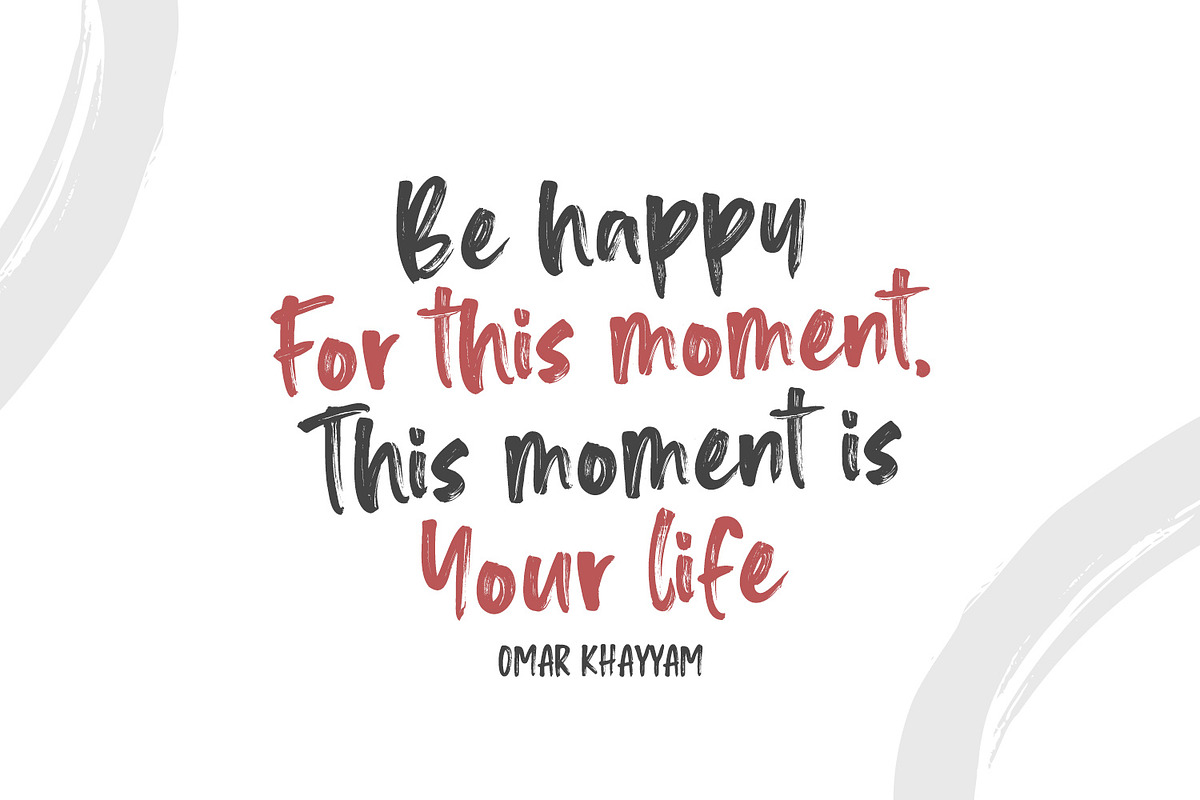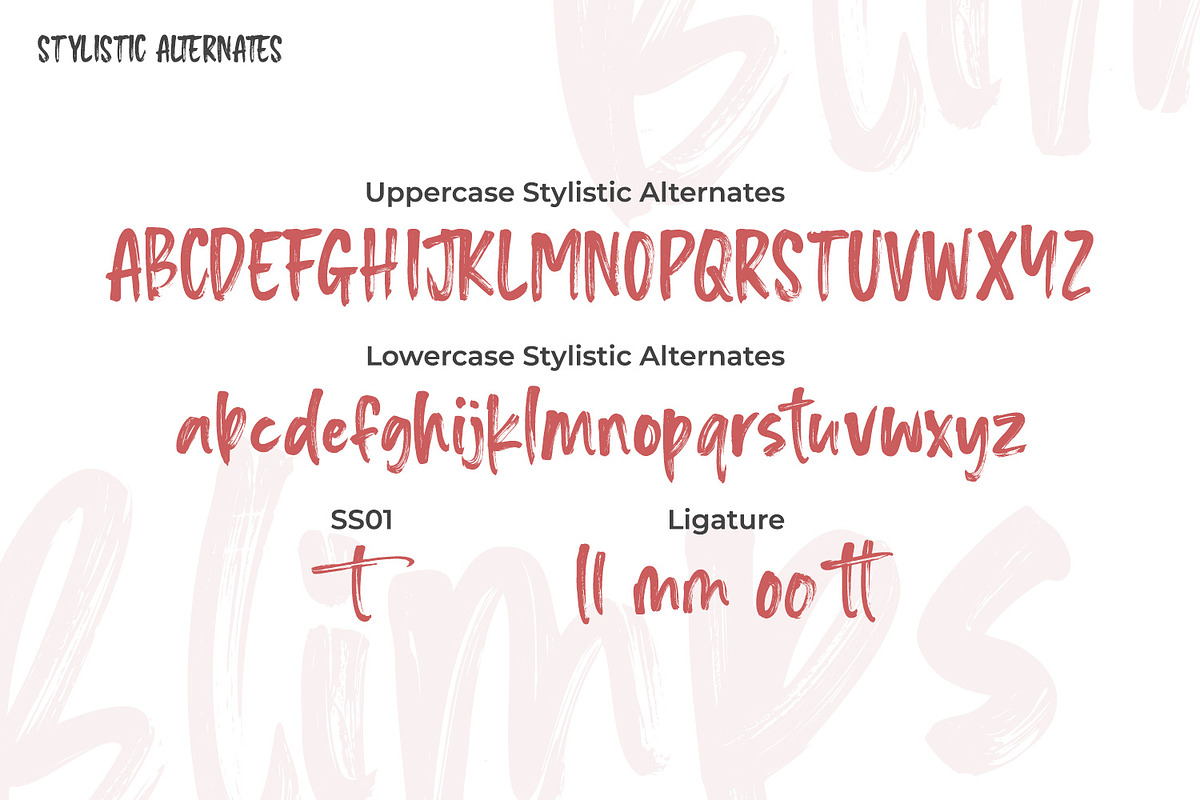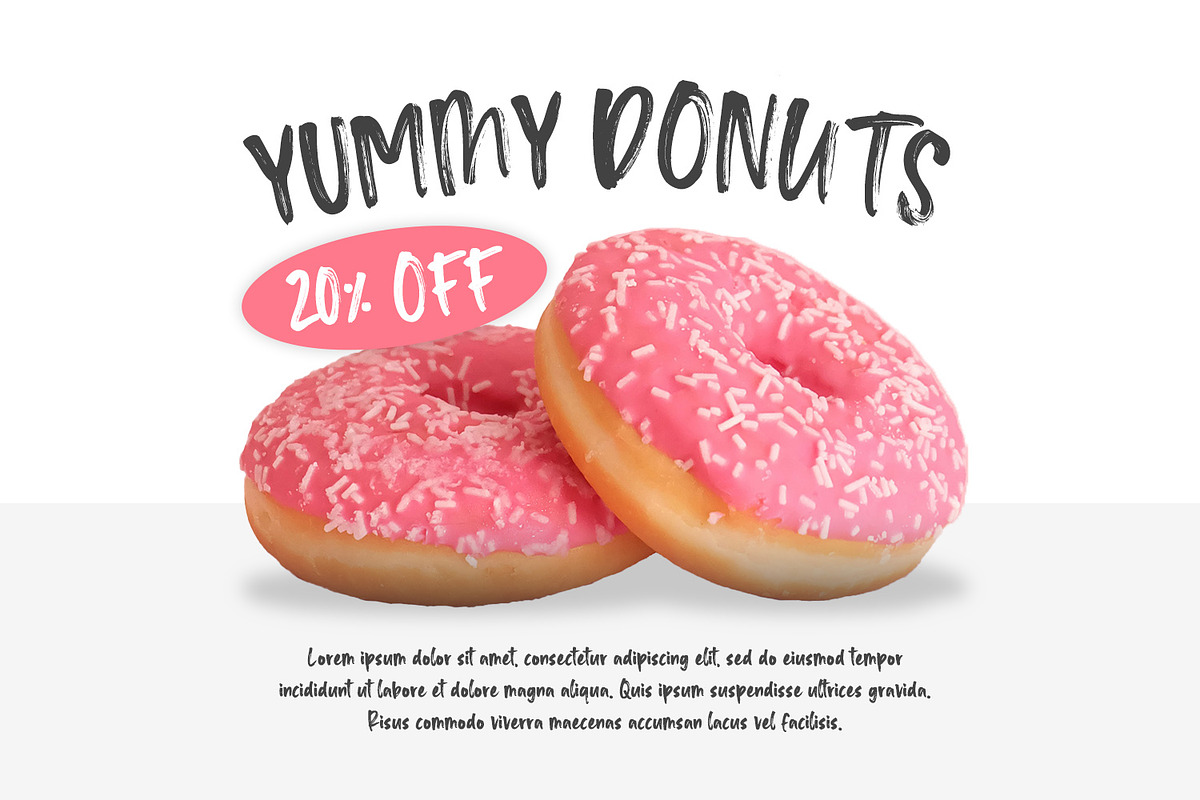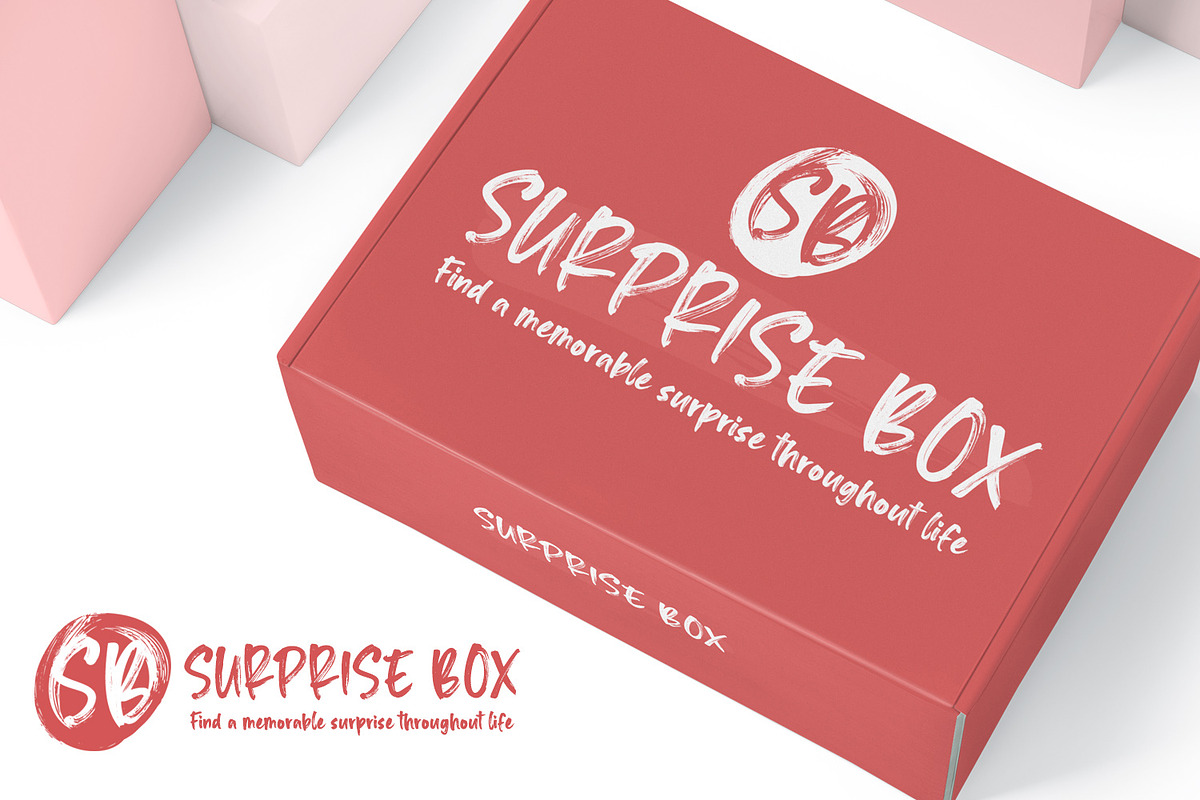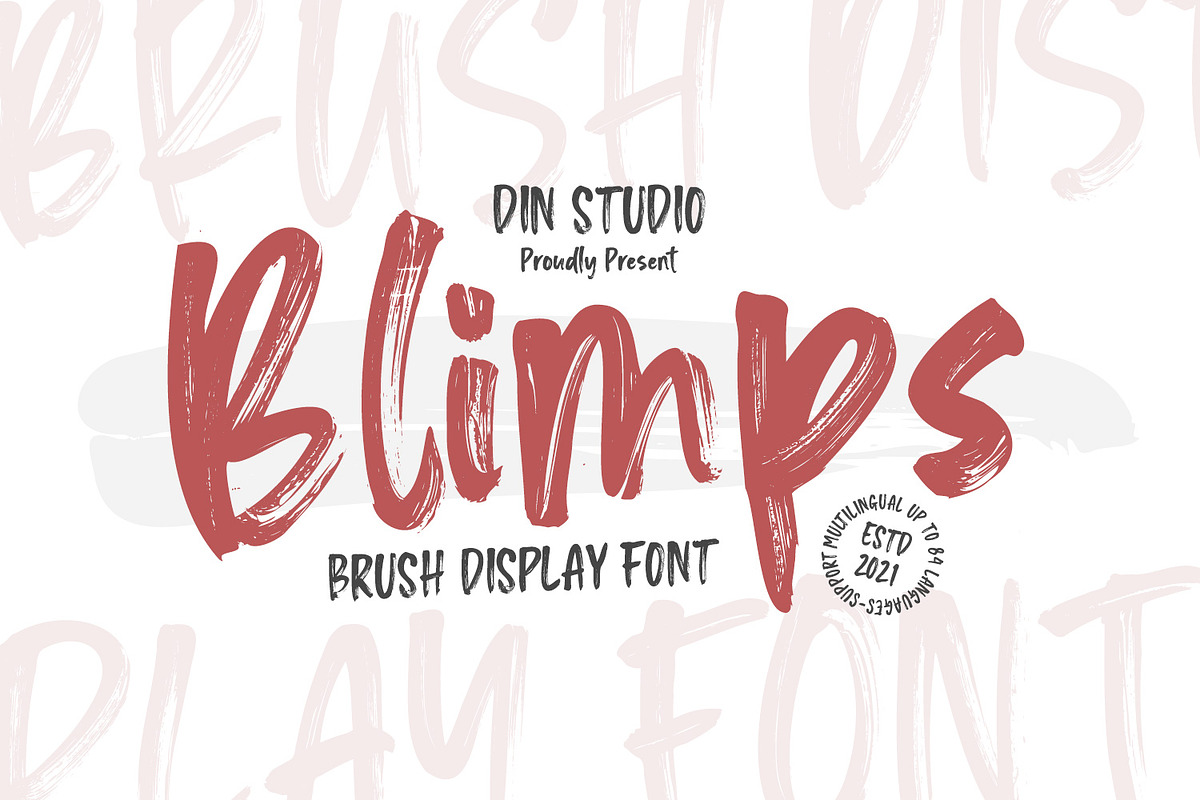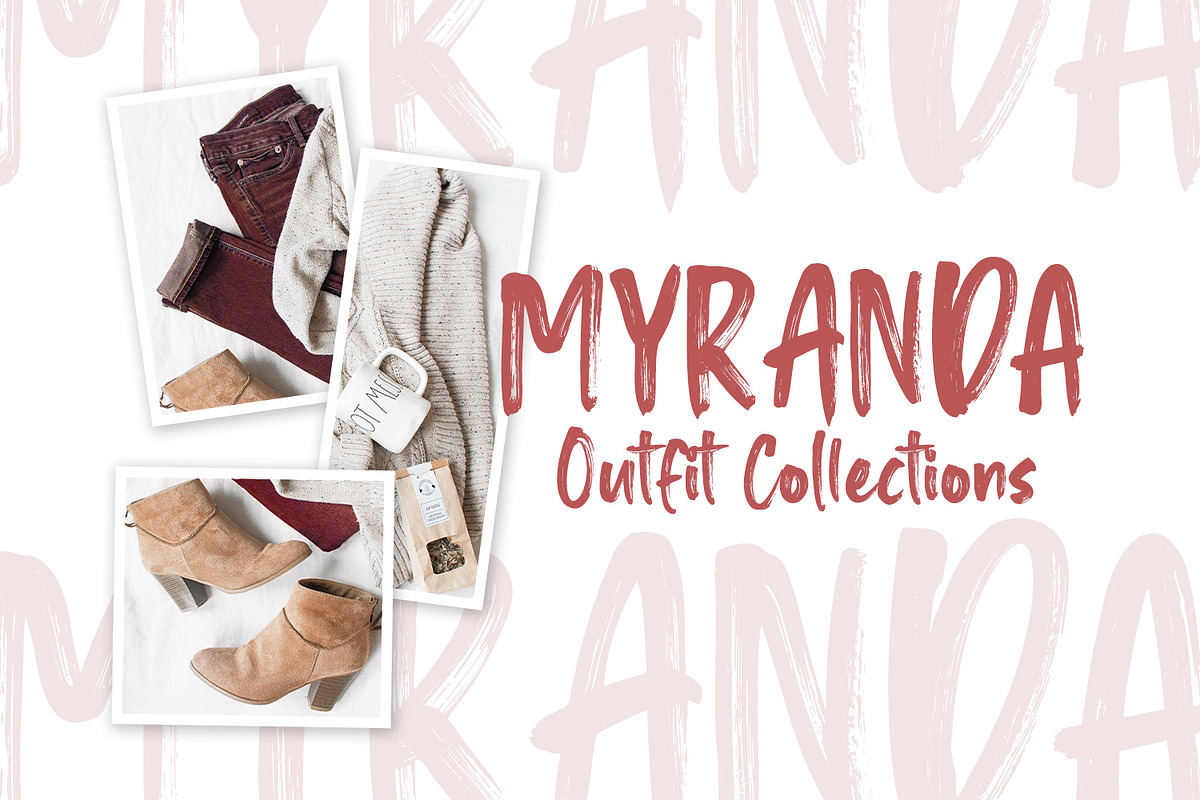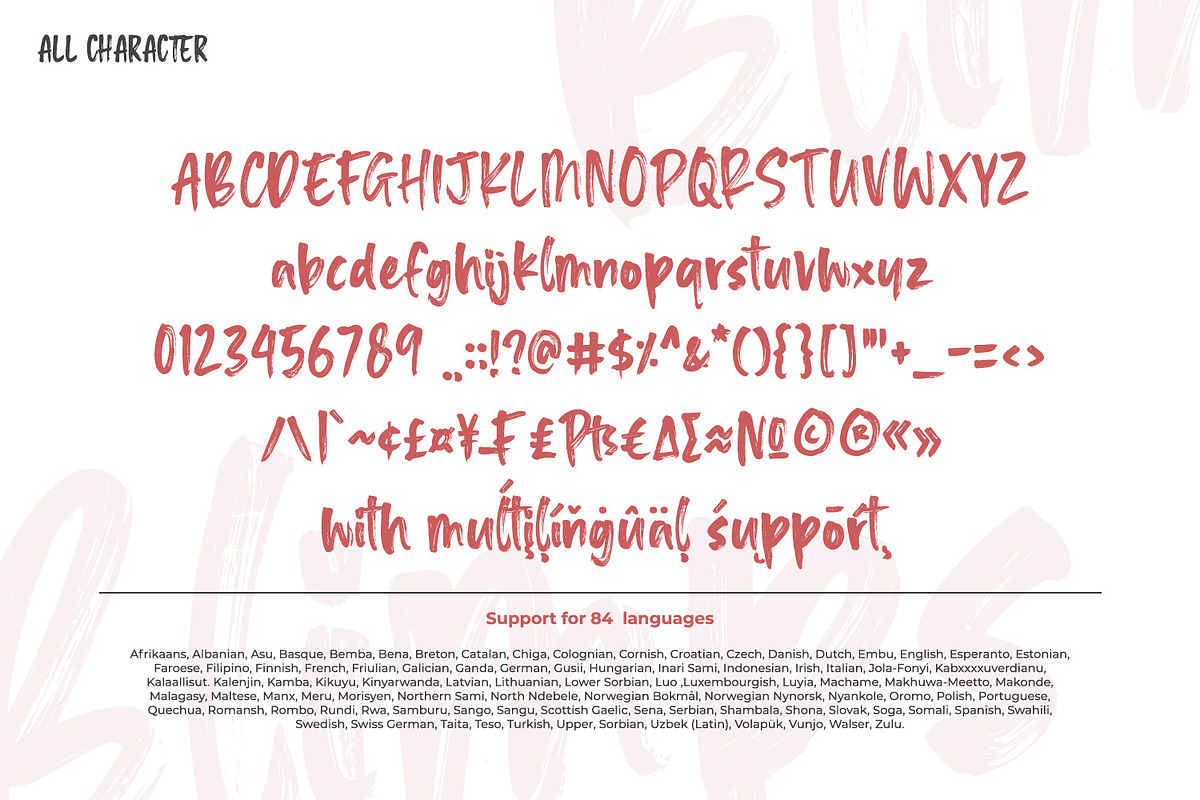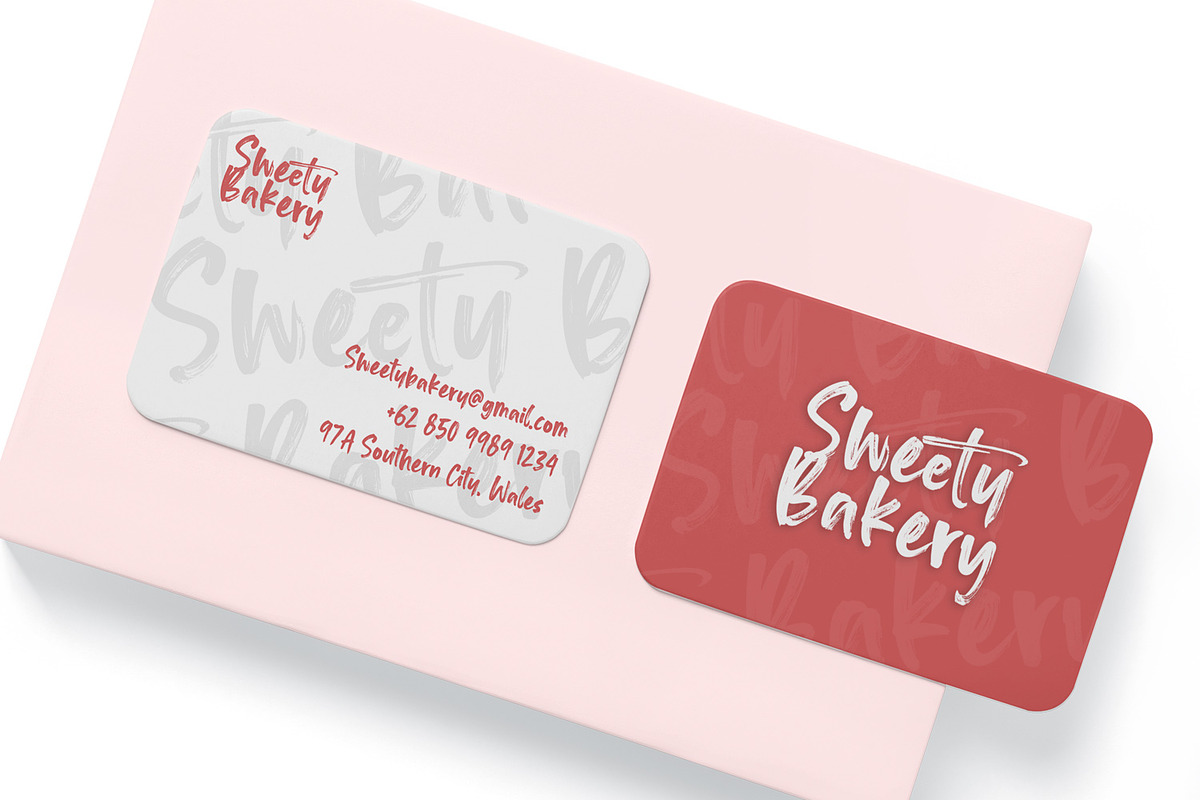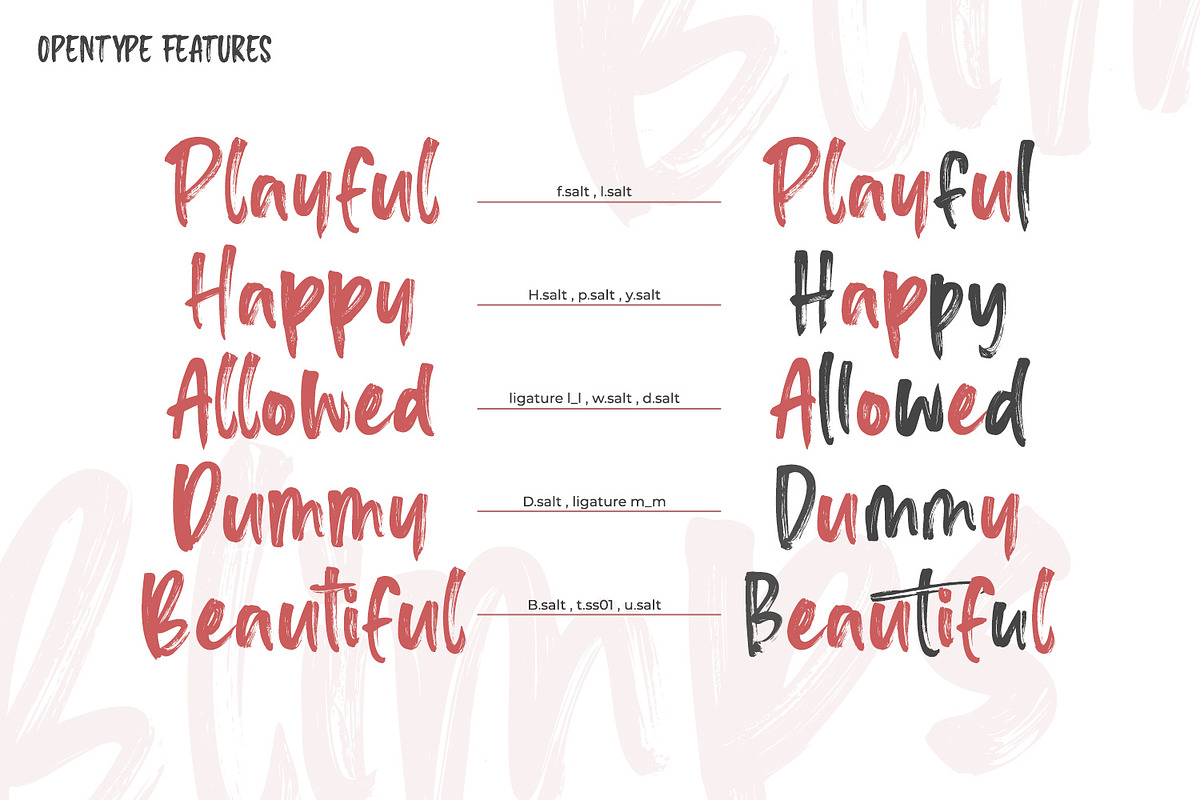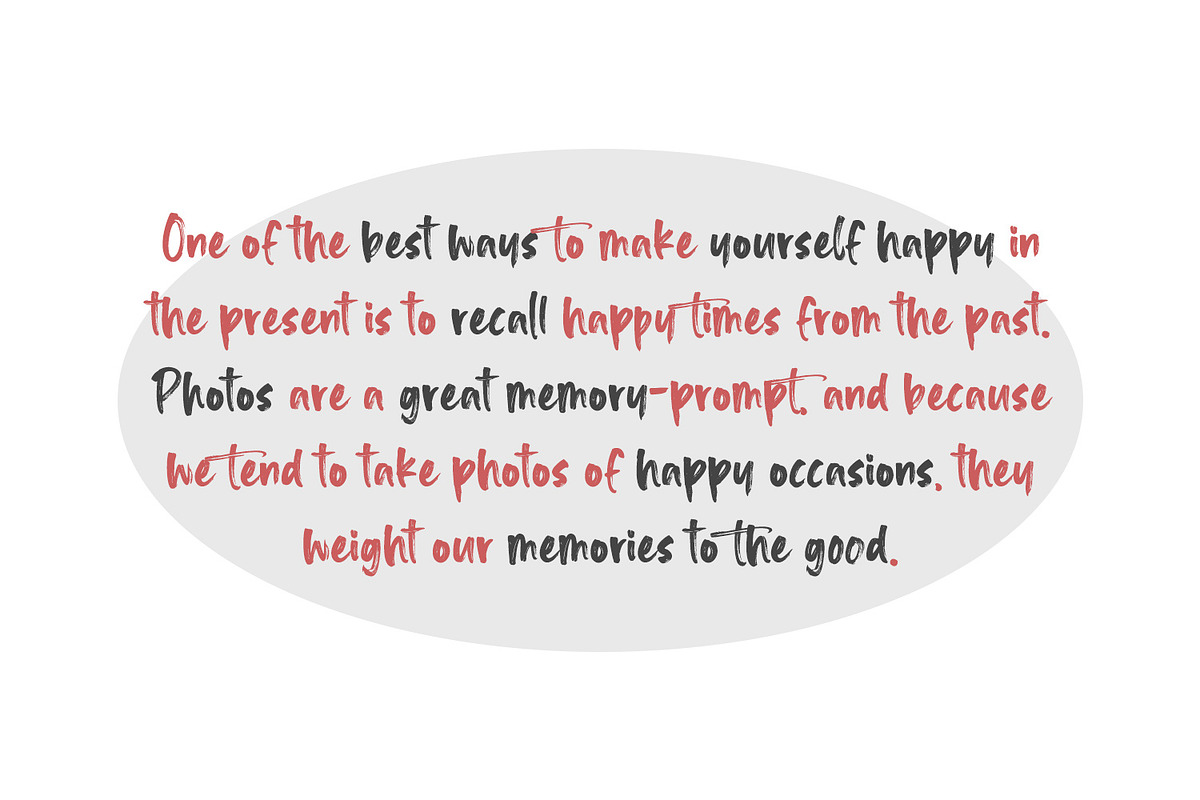
Blimps
Are you ready to make your branding stand out? Do you dream of creating headings that stand out and inspire creativity, imagination, modernity, and endless fun? Looking for an elegant and stylish font? We've got what you want.
Blimps-A Brush Font
Blimps is a fantastic font. A display font that is combined with handcrafted script brush font. Designed primarily as a captivating font to add the right amount of modernity and style, This font is an excellent choice to ensure a great font match for your designs and projects! Well suited to titles, poster designs, branding, logos, and many more.
Our font always includes Multilingual Supports to make your branding reach a global audience.
- Stylistic Set